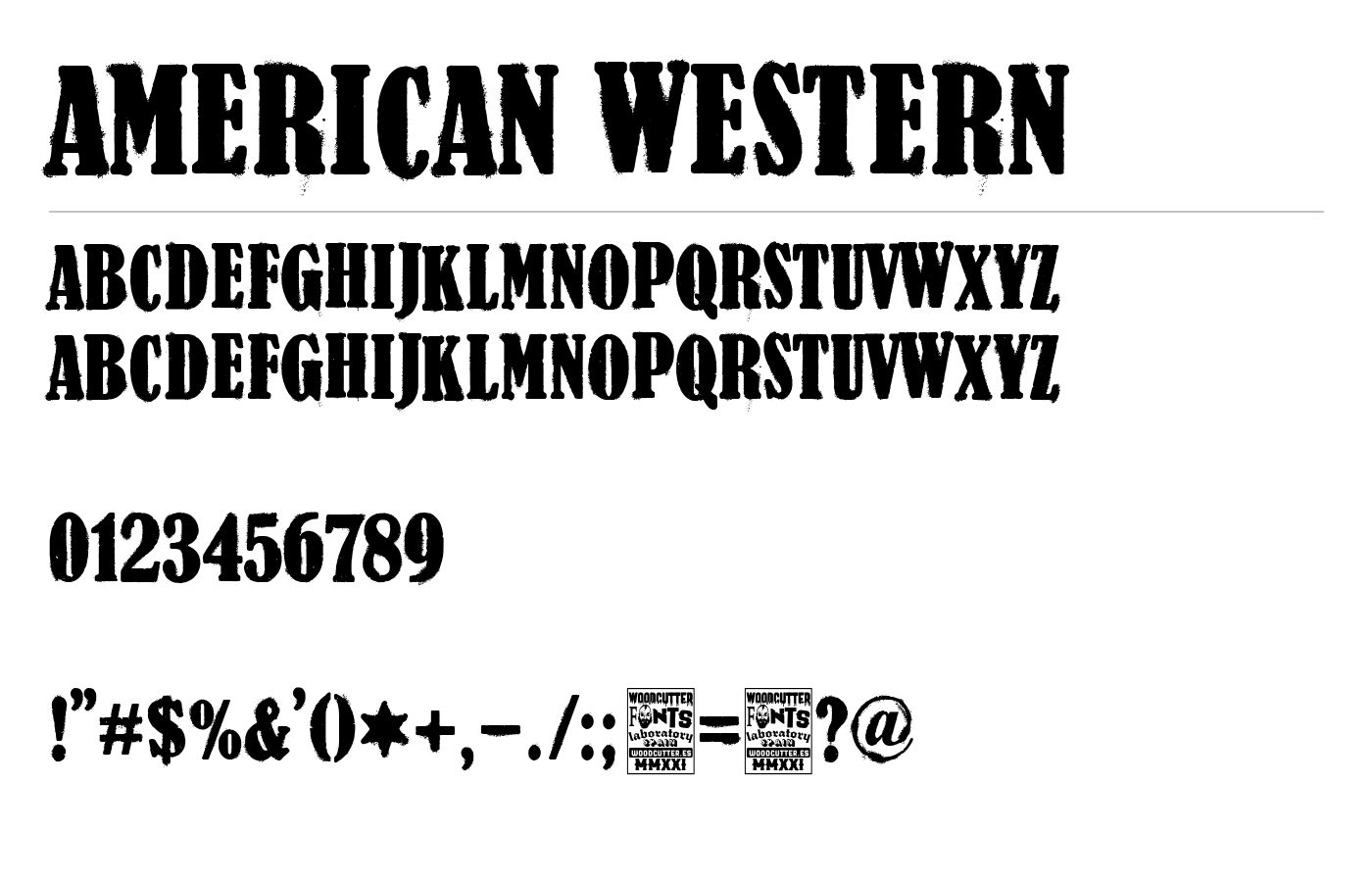
American Western Font is a bold, condensed slab serif typeface with a rugged, distressed texture that evokes the spirit of the Old West. Its strong vertical emphasis and rough edges give it a vintage, rustic feel, ideal for creating an authentic Western or cowboy-themed look. This font works great for headlines, posters, and branding where a bold, nostalgic, and adventurous tone is desired.
American Western Font
About American Western Font